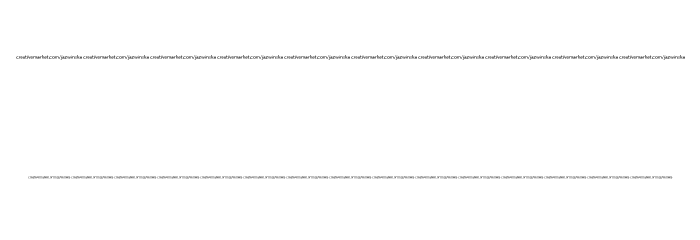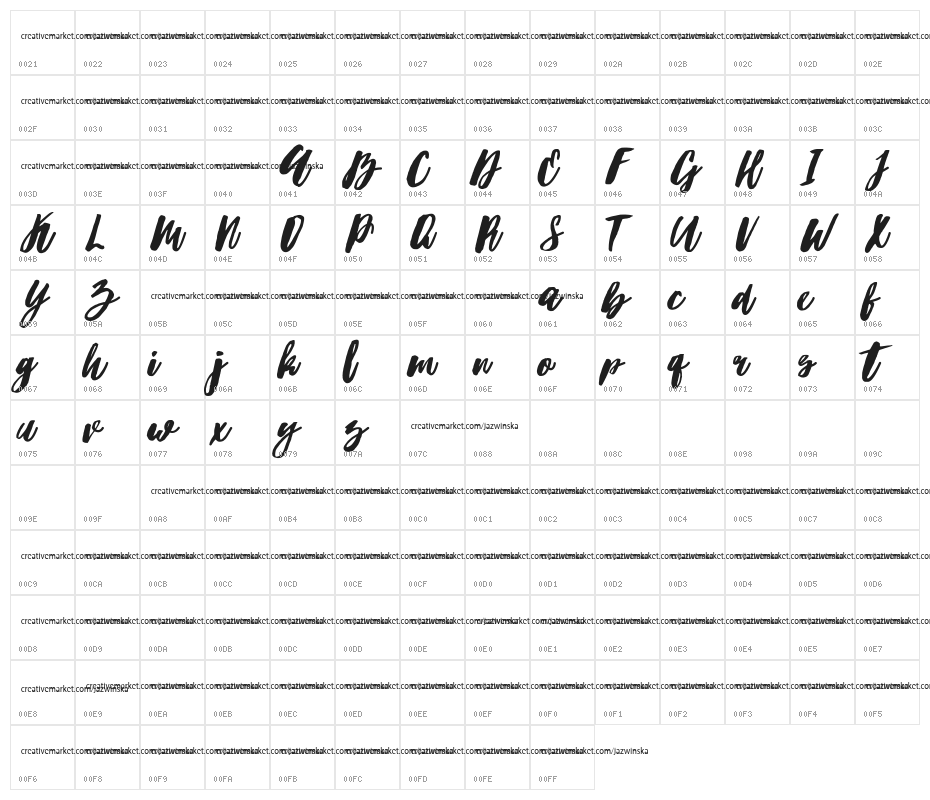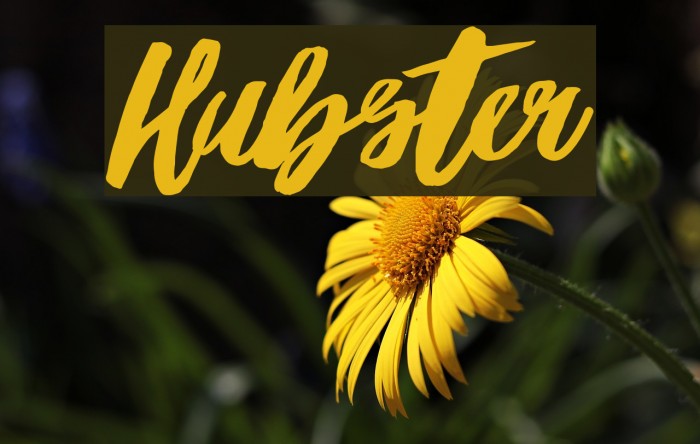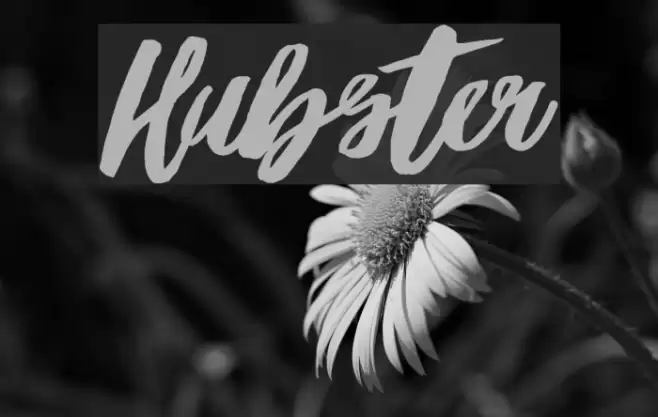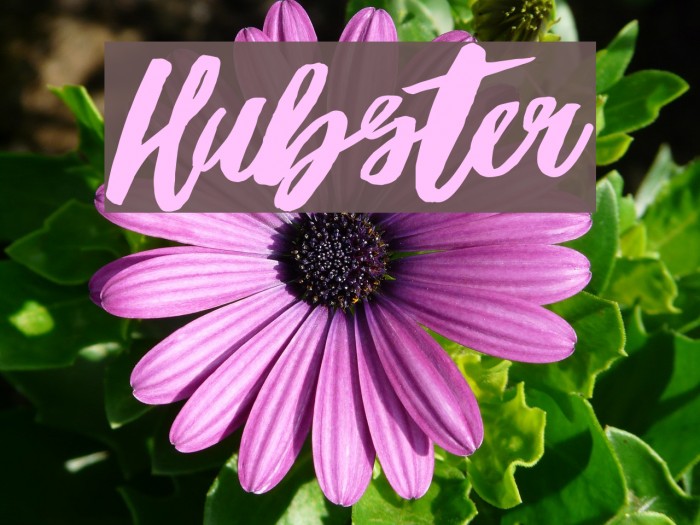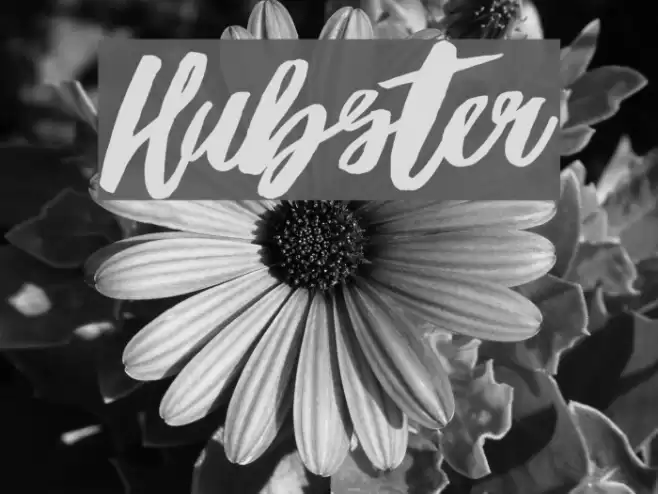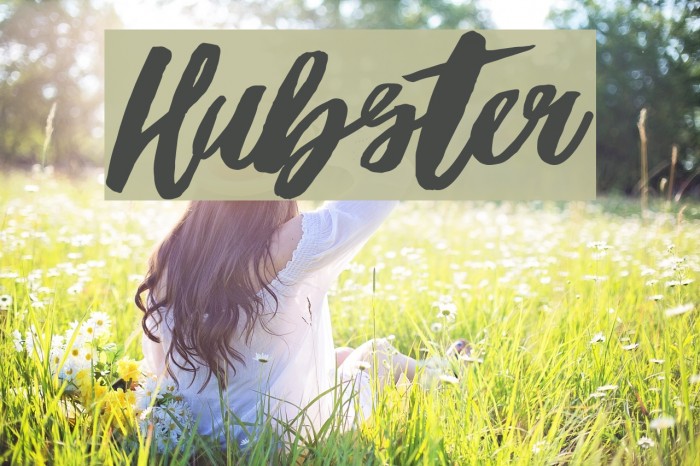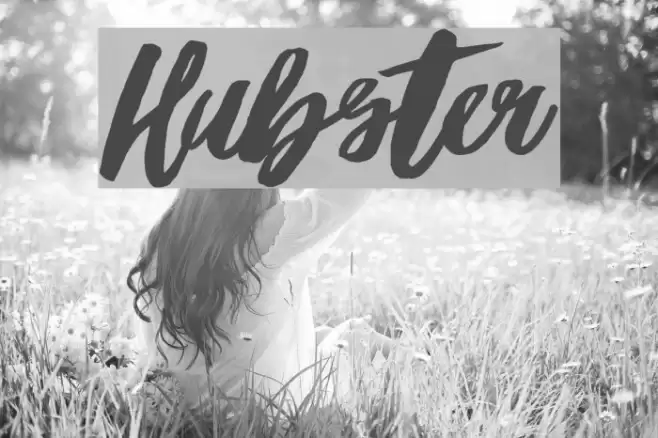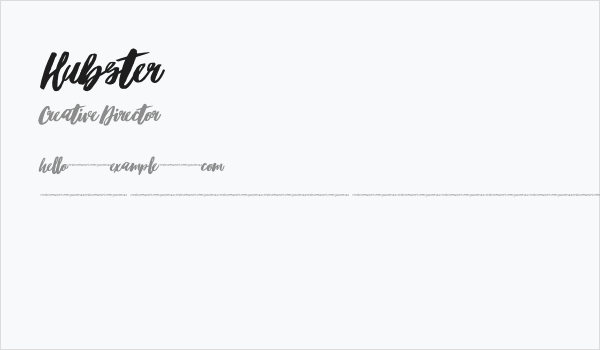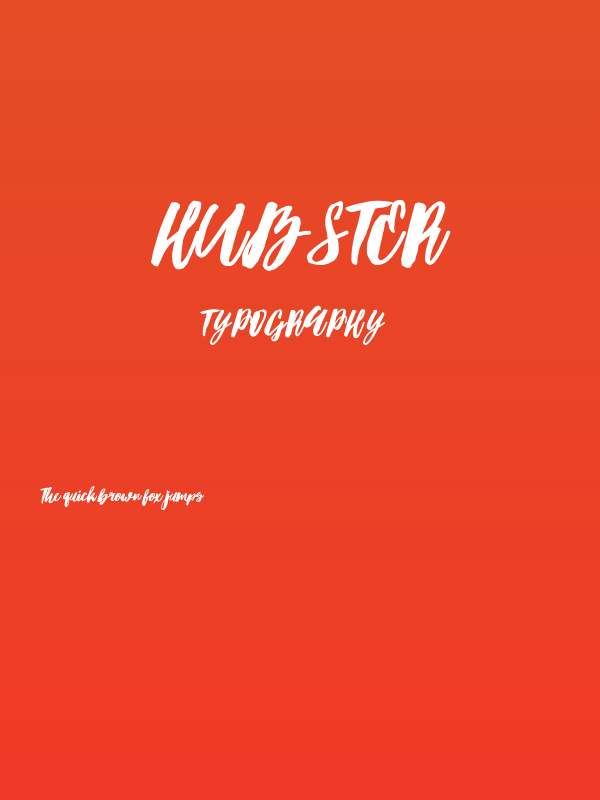
Hubster Font
Hubster Description
This font features a bold and expressive script style, characterized by its fluid, hand-drawn appearance. The letters are connected in a way that mimics natural handwriting, with varying stroke widths that add a dynamic and lively feel. The uppercase letters are slightly more structured, while the lowercase letters flow seamlessly into each other, creating a cohesive and artistic look. The font's thick strokes and high contrast make it stand out, ideal for designs that require a personal and creative touch.
| Proposed Projects | Ideal for branding, logos, invitations, and any project that requires a personal, artistic touch. |